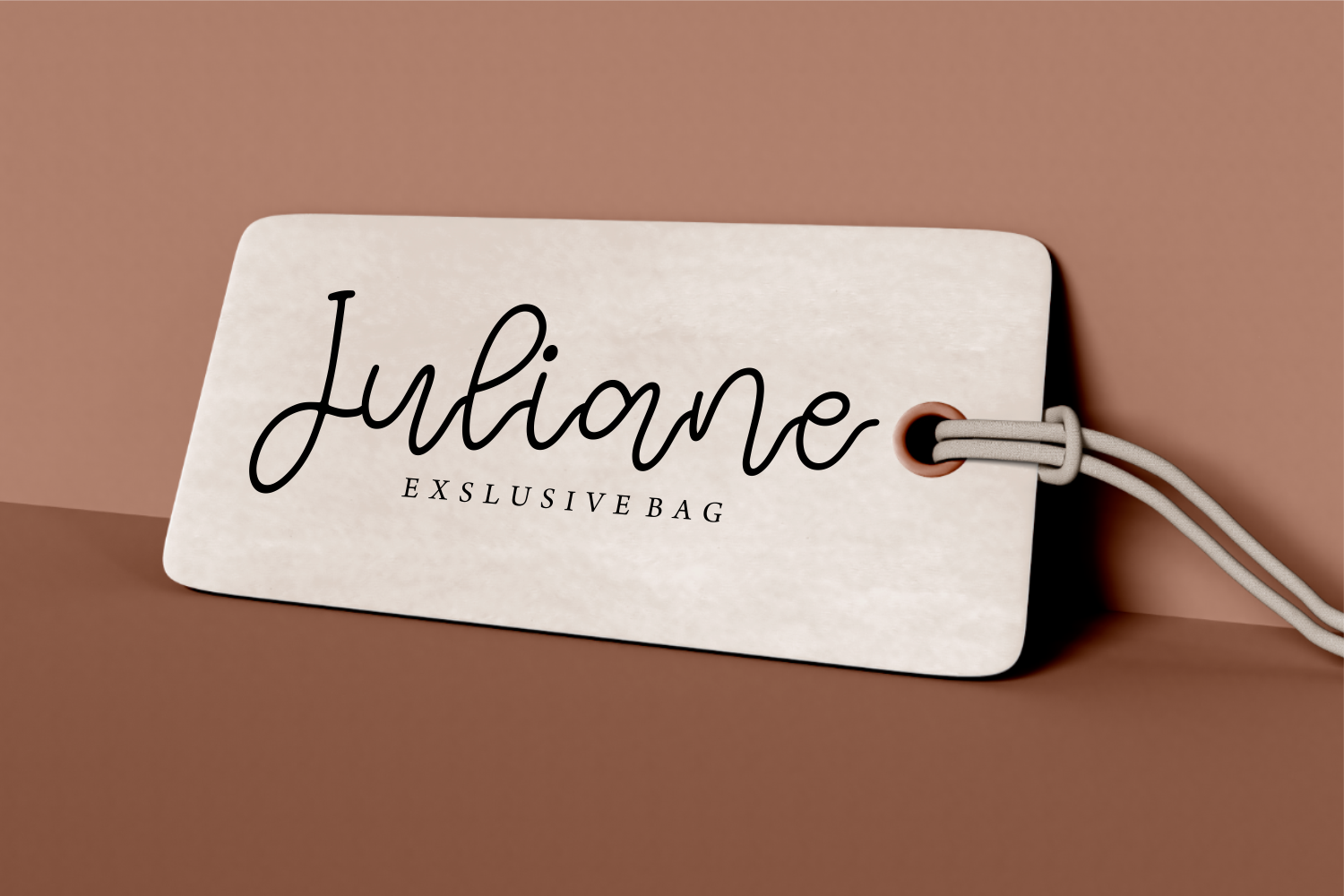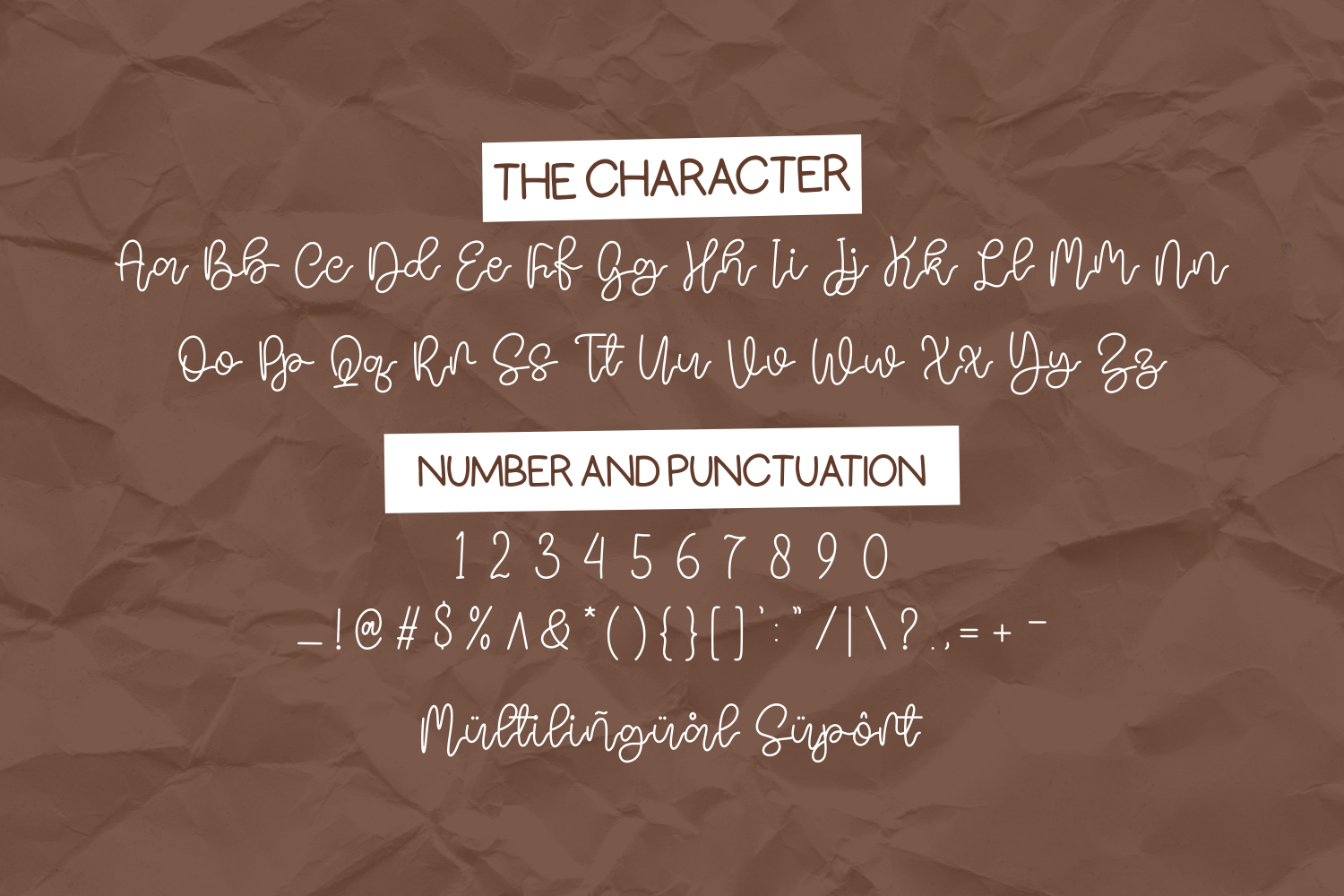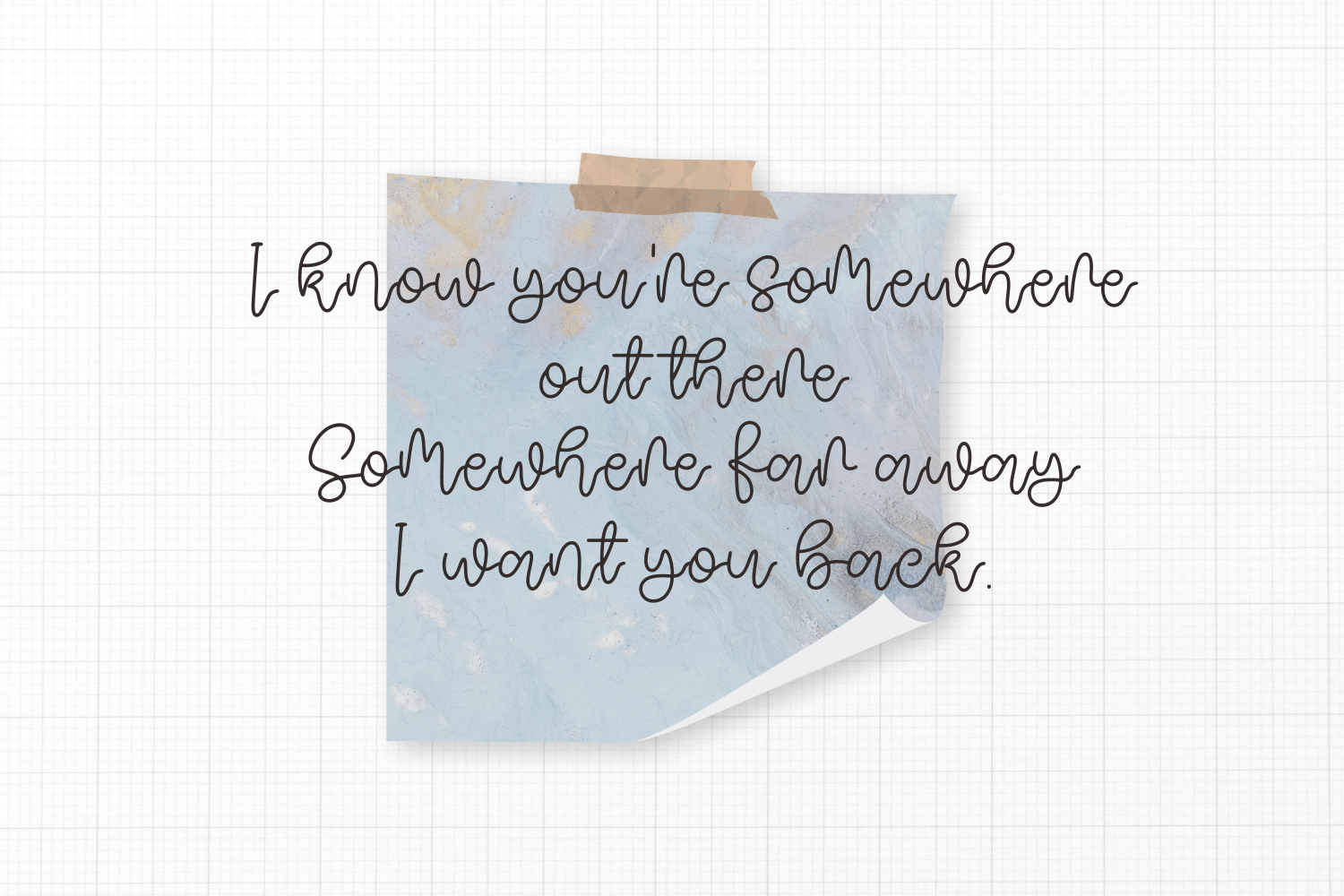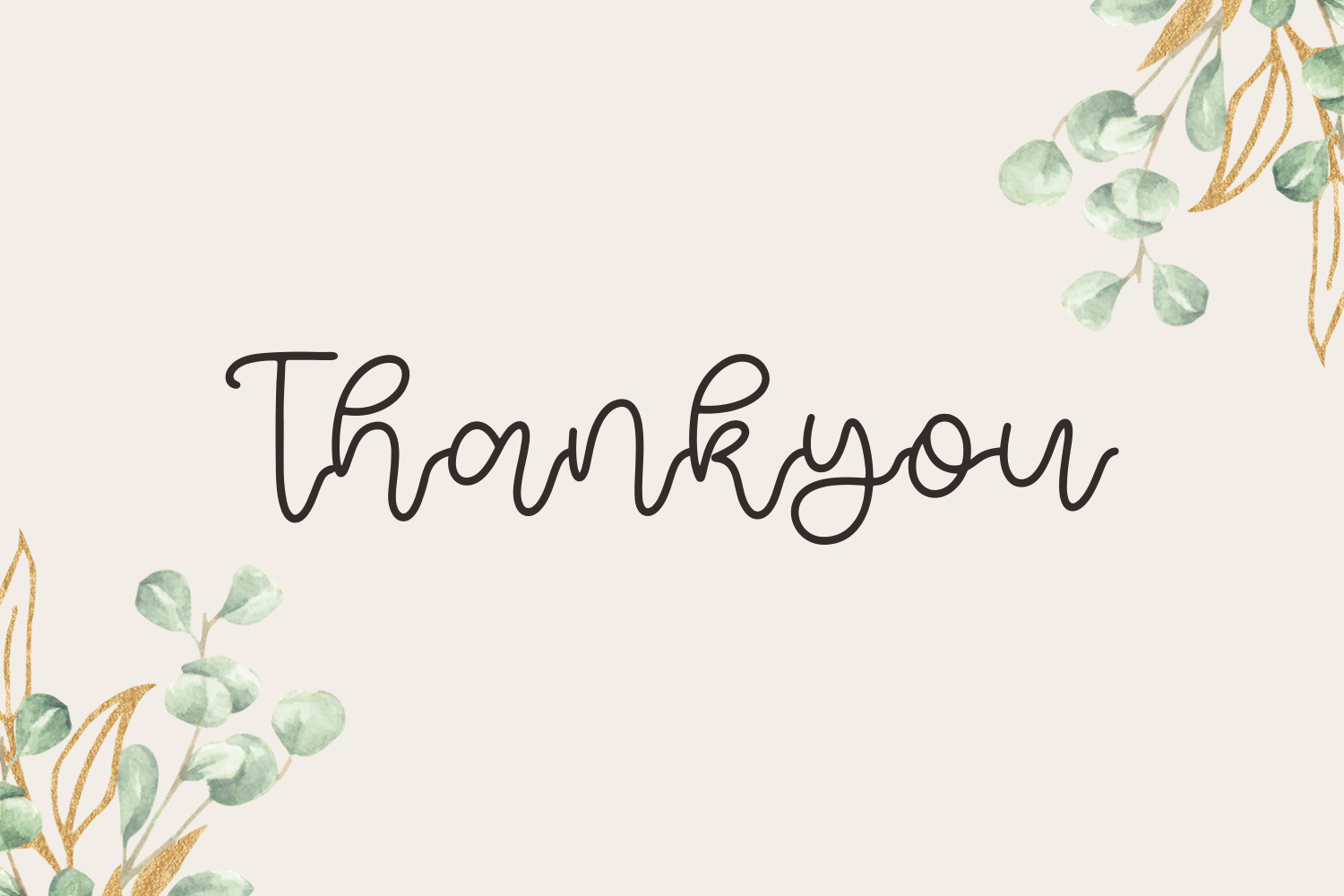
Lazie Victory Font
Lazie Victory Handwritten Font is a cute and adaptable handwritten font. Use it for your headings, logos, ads, printed quotes, packaging, and even website or social media branding.